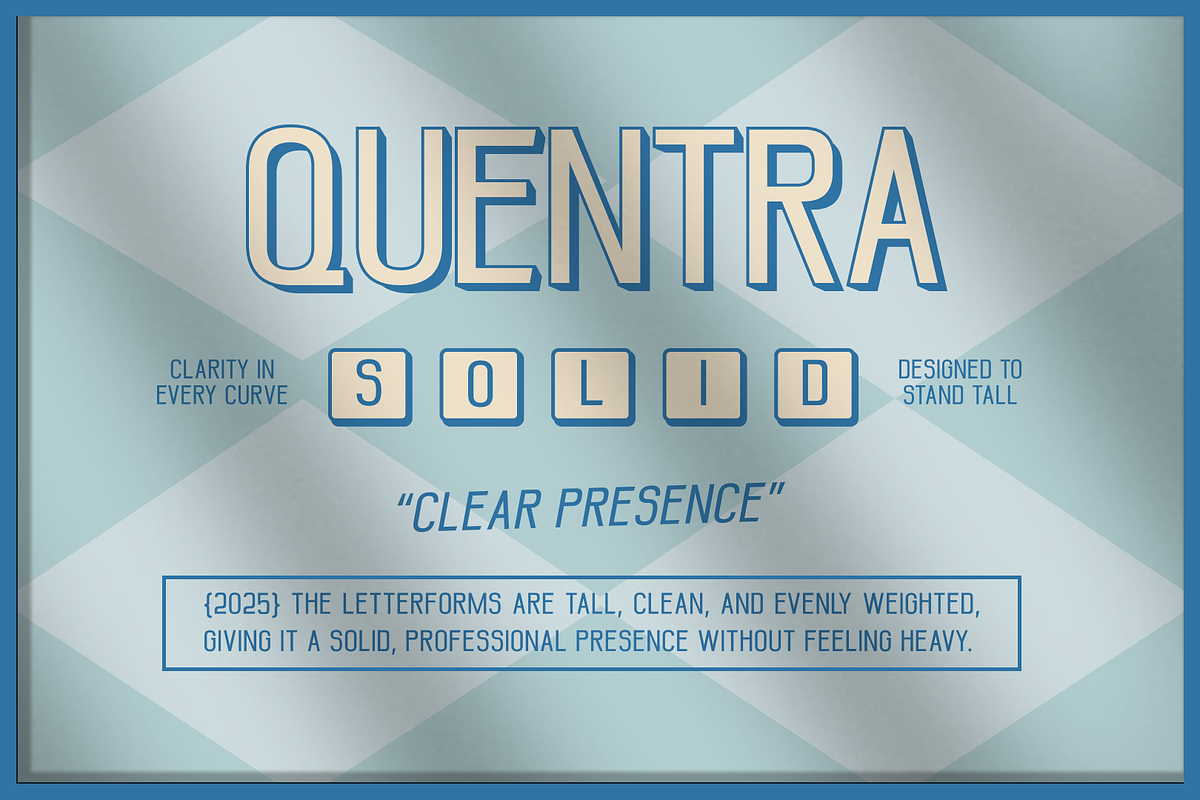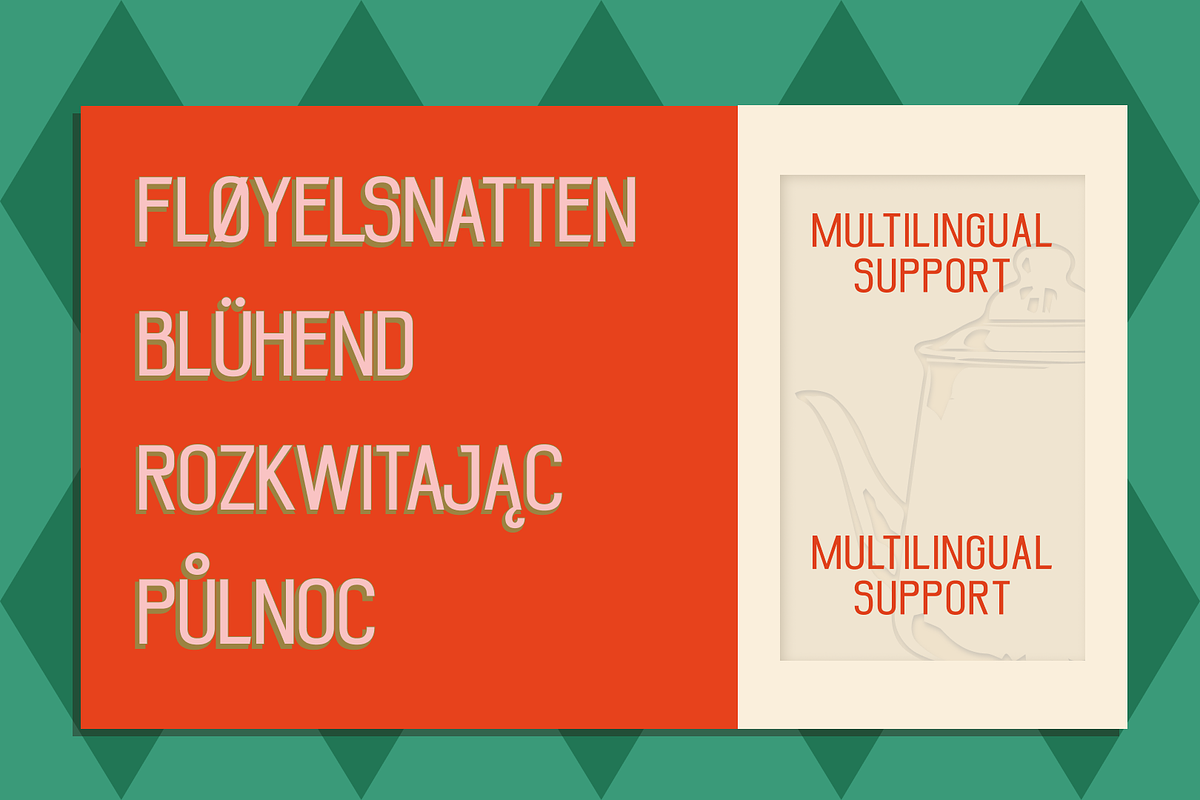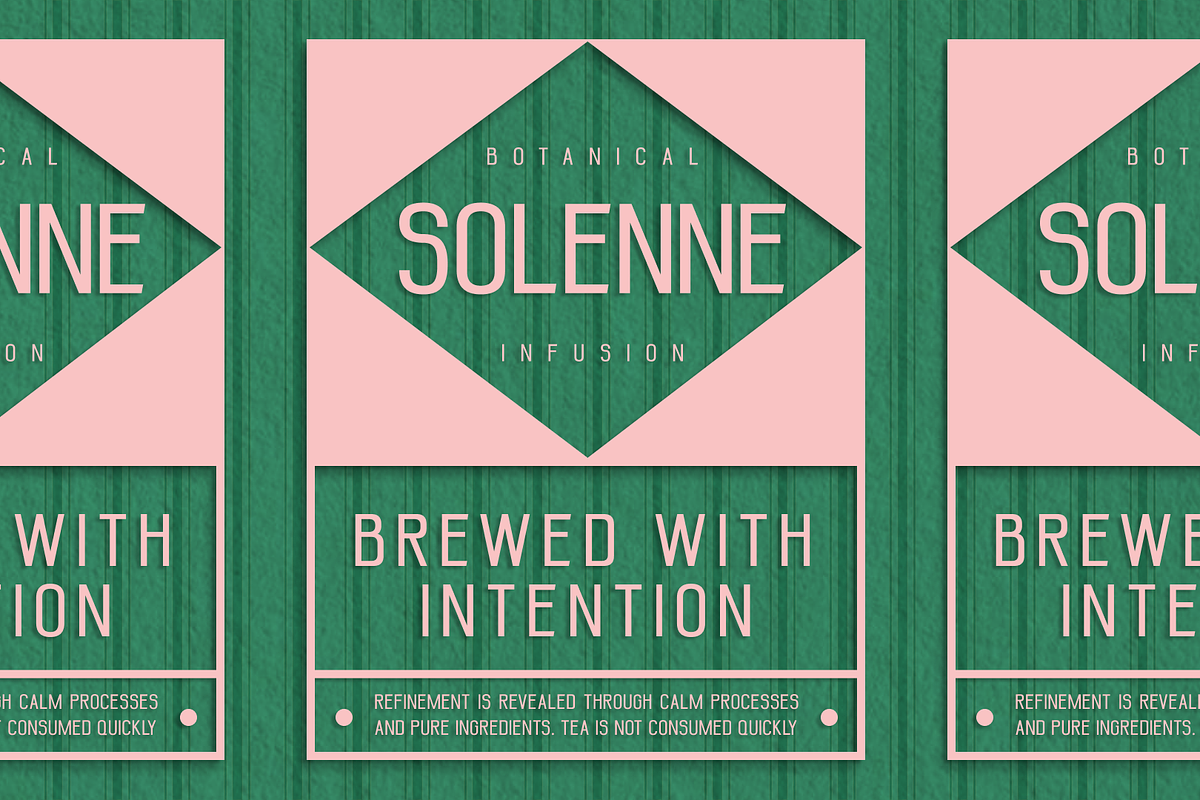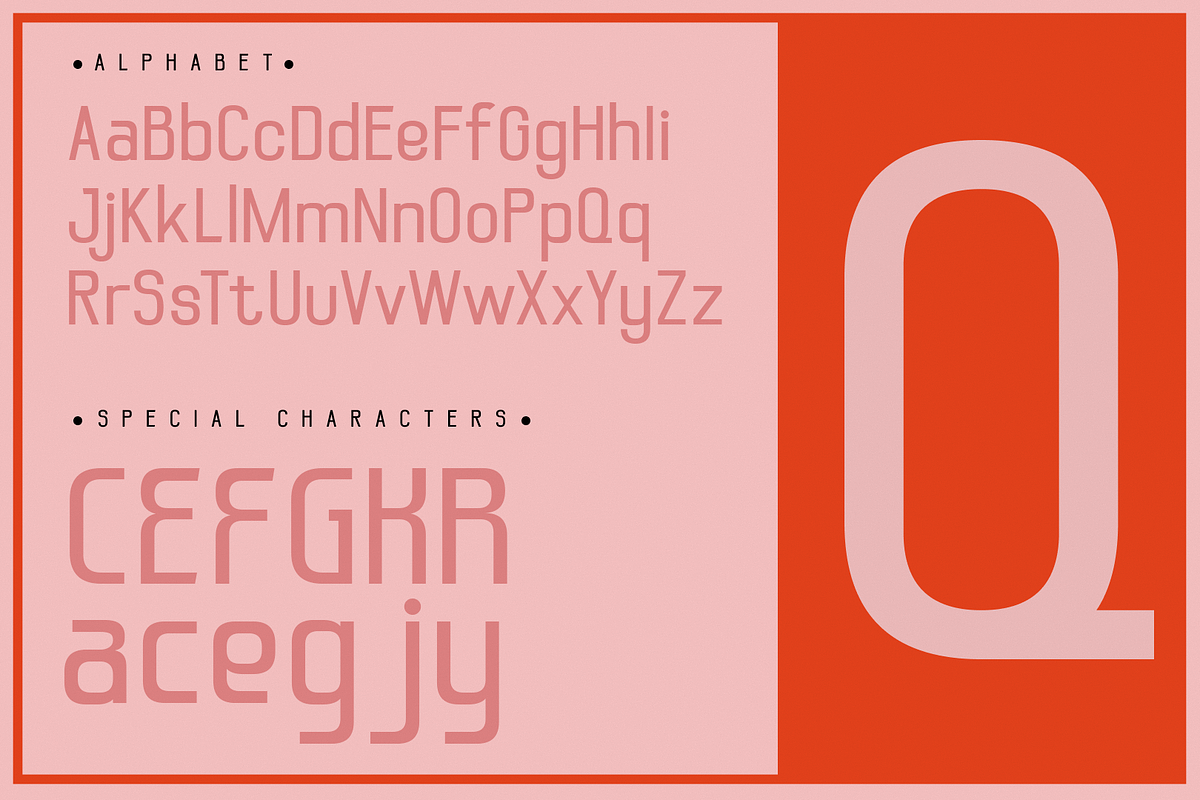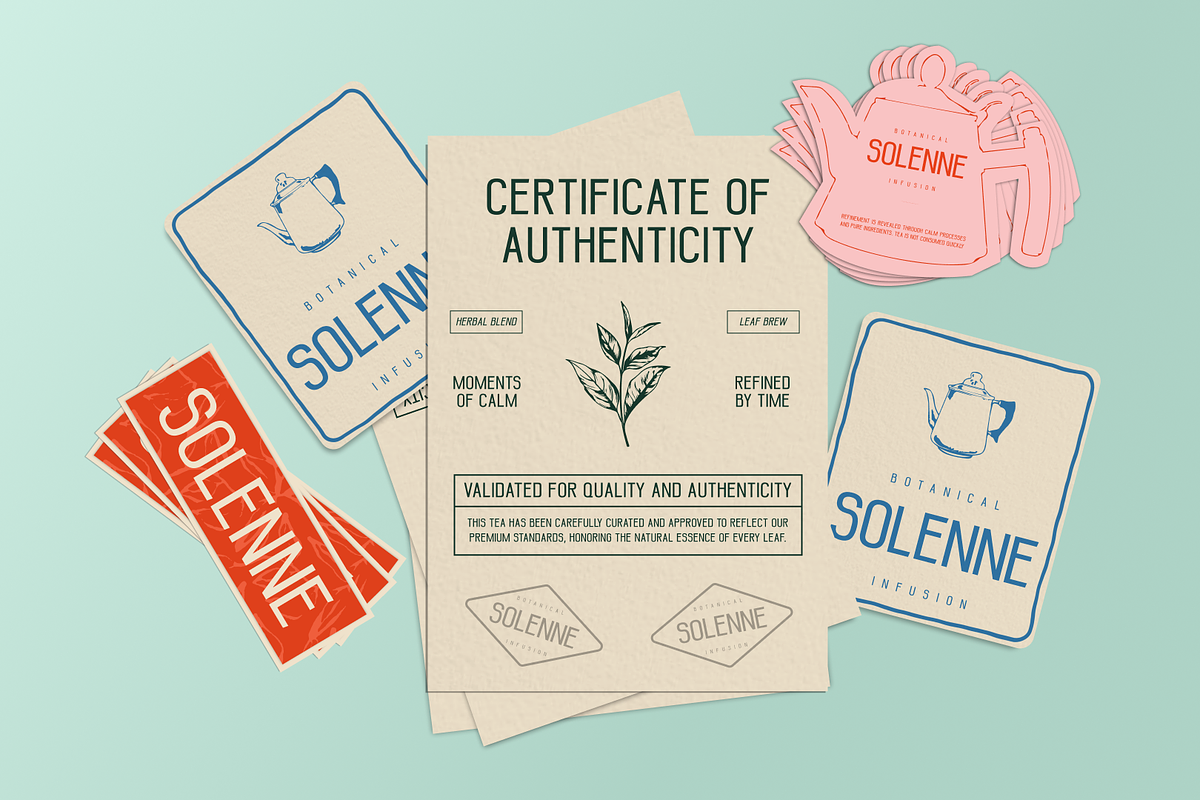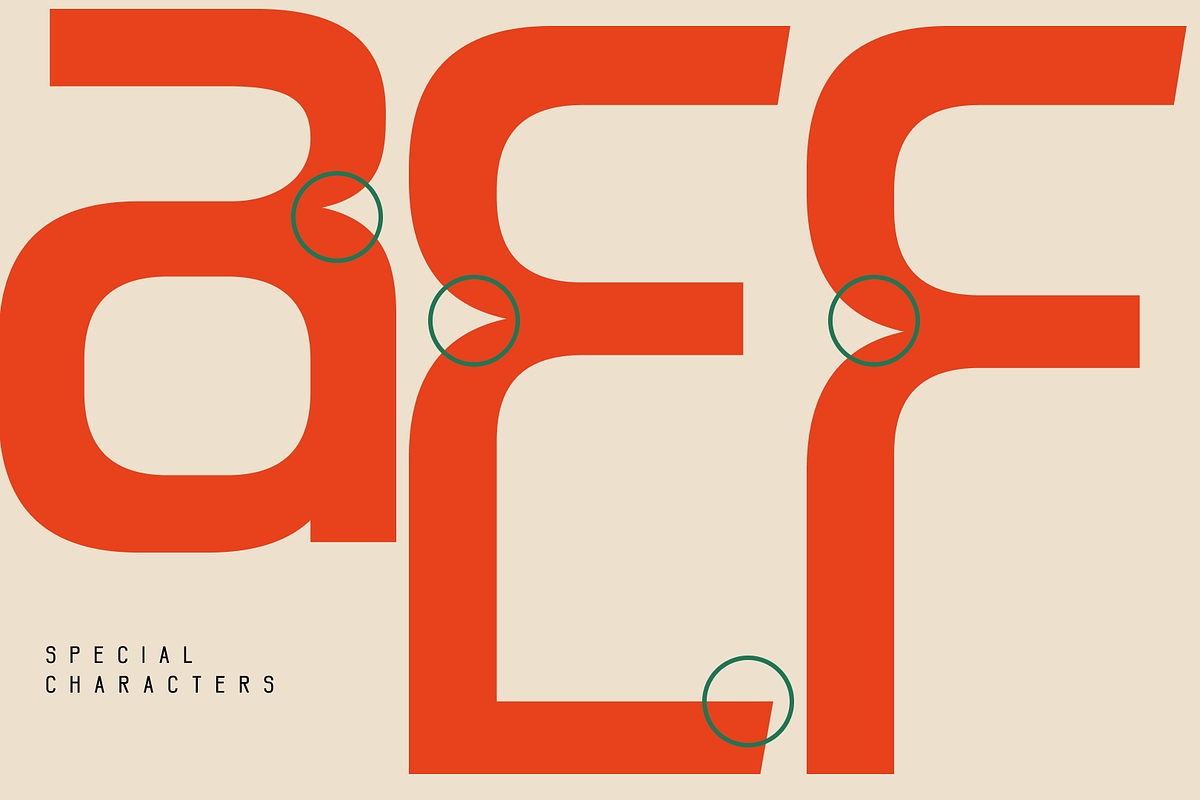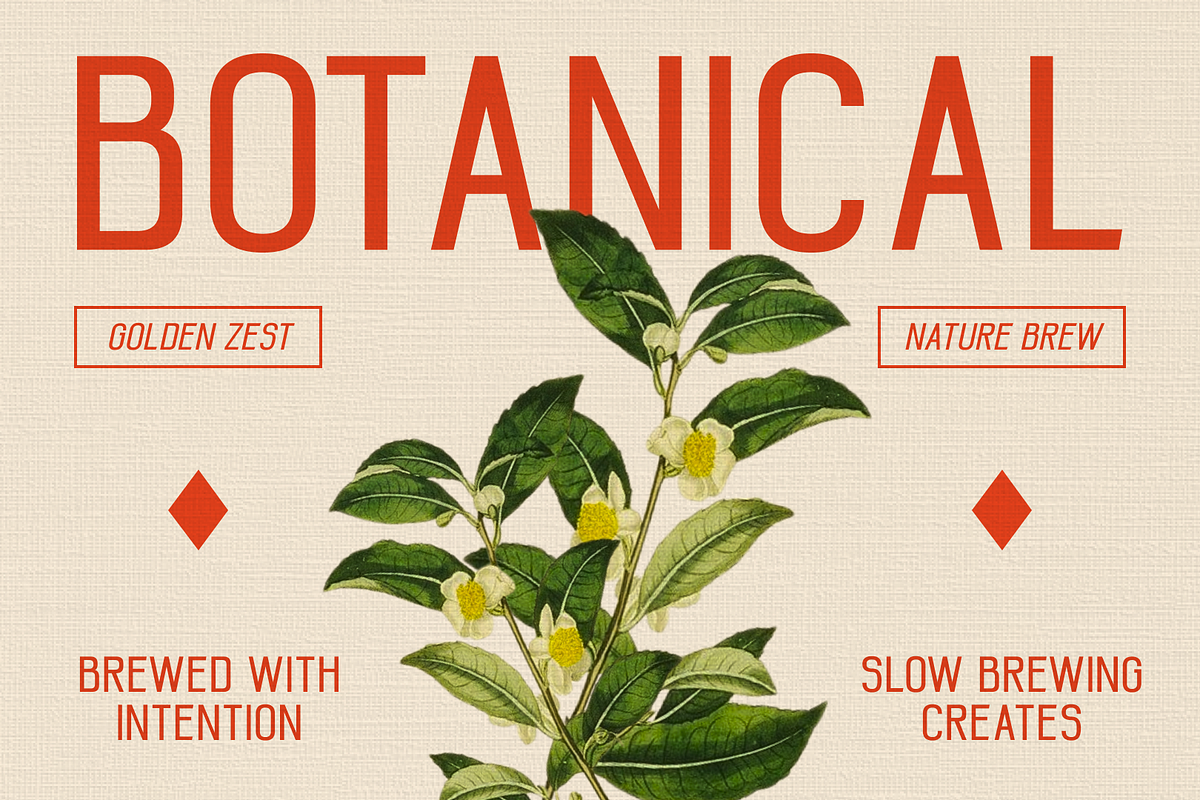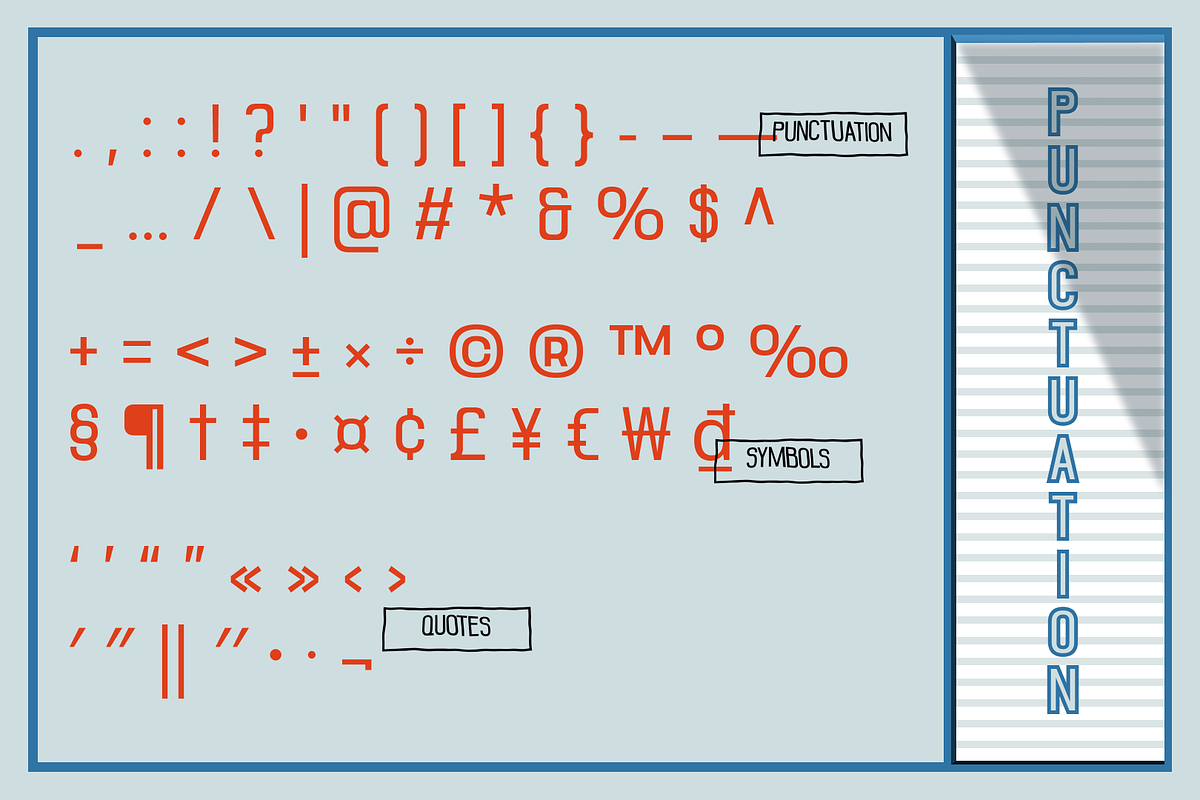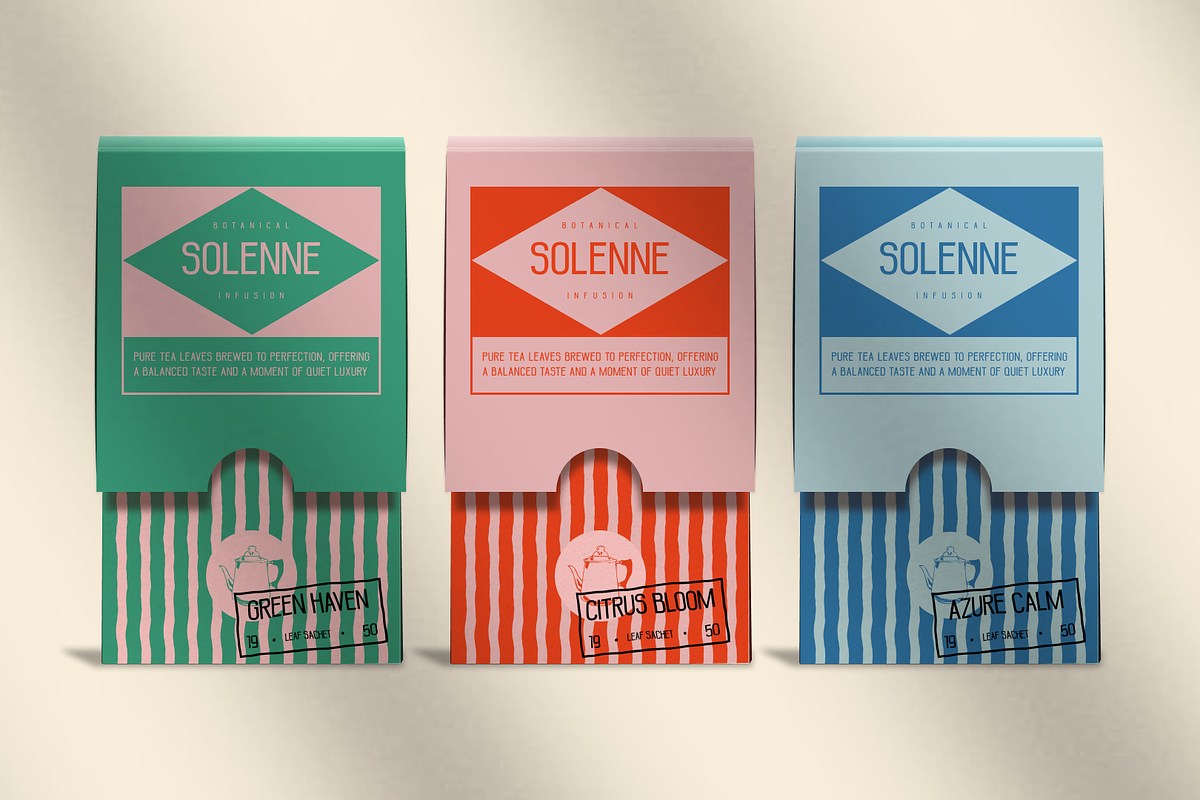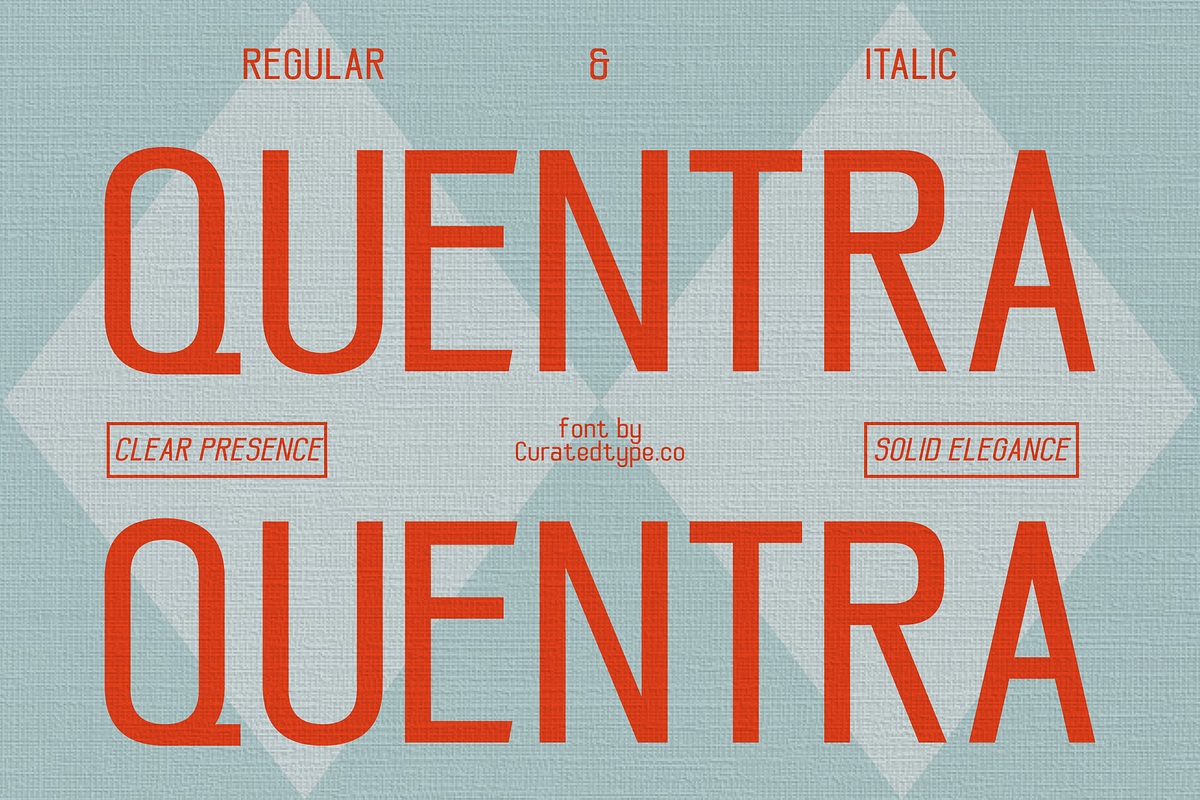
Quentra
Meet Quentra: The Architect of Modern Typography Step into the future of design with Quentra, a typeface engineered for the digital age. With its sleek, condensed profile and confident geometric structure, Quentra brings a sense of technological precision to your work. The smooth, squarish curves strike the perfect balance between heavy industrial machinery and approachable modern minimalism. It captures the eye without overwhelming the layout, making it the ultimate tool for designers looking to convey innovation, speed, and strength.
Versatility for Every Project Whether you are branding a high-tech startup, designing a cutting-edge gaming interface, or creating aggressive sports merchandise, Quentra delivers. Its compact width allows for punchy, large-scale headlines even in tight spaces, while its legibility holds up surprisingly well on screens. From automotive decals to YouTube thumbnails and mobile app headers, Quentra is the display font that ensures your message isn't just seen—it's remembered.
- 2 Styles Font : Regular, Italic
- Standard letter A-Z and a-z
- Numeral, Symbol, and Punctuations
- OpenType Feature
- Over 500 glyphs